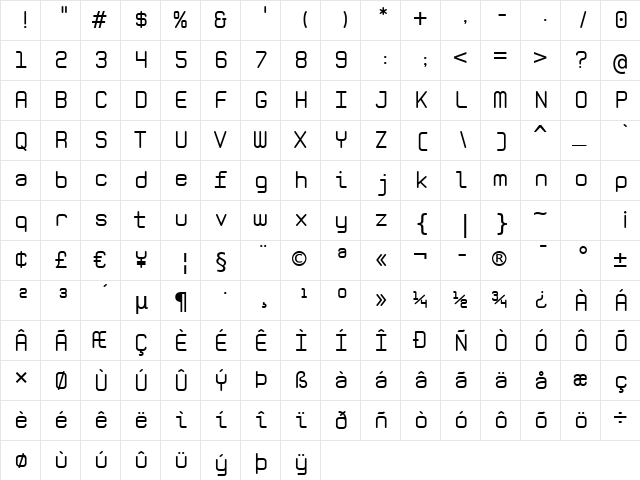
Zolan Mono BTN Regular
Design Context for Zolan Mono BTN Typeface
Zolan Mono BTN brings the precise, column-aligned rhythm of monospaced typography to designs that value technical clarity and systematic order.
A natural fit for code editors, technical documentation, developer-focused branding, and terminal-inspired UI.
Pro Tip: Pair Zolan Mono BTN with a proportional sans for UI contexts where code-style labels and regular body copy need to coexist.